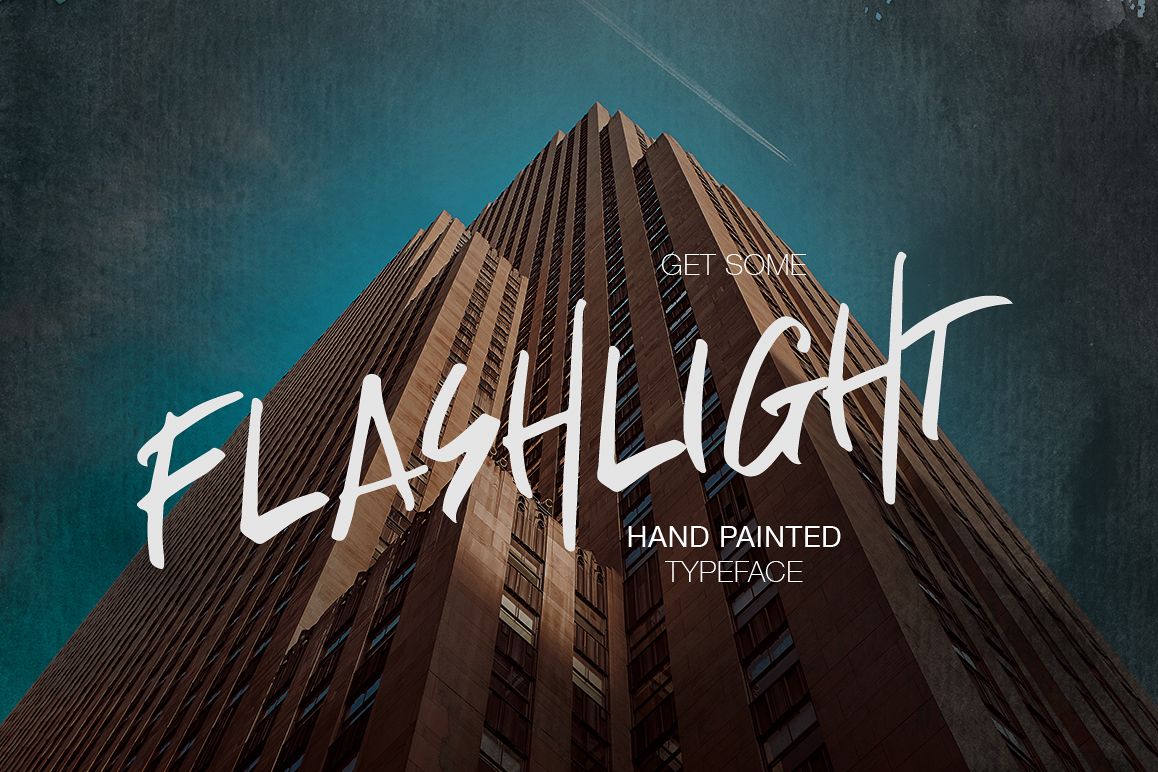
Flashlight handwritten font
Flashlight is a highly detailed handcrafted font. Very suitable for digital lettering, branding materials, t-shirt, print, business cards, quotes, logo, poster, t-shirt, nature photography and applicable for any graphic design